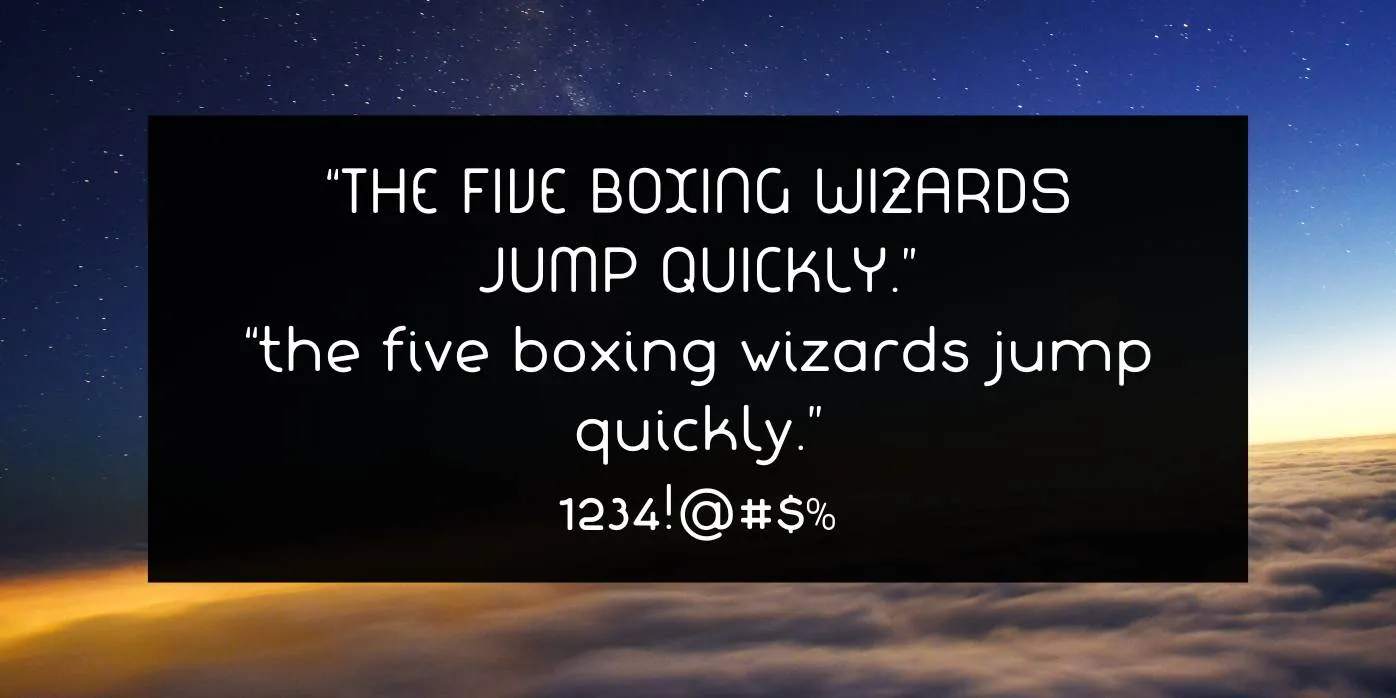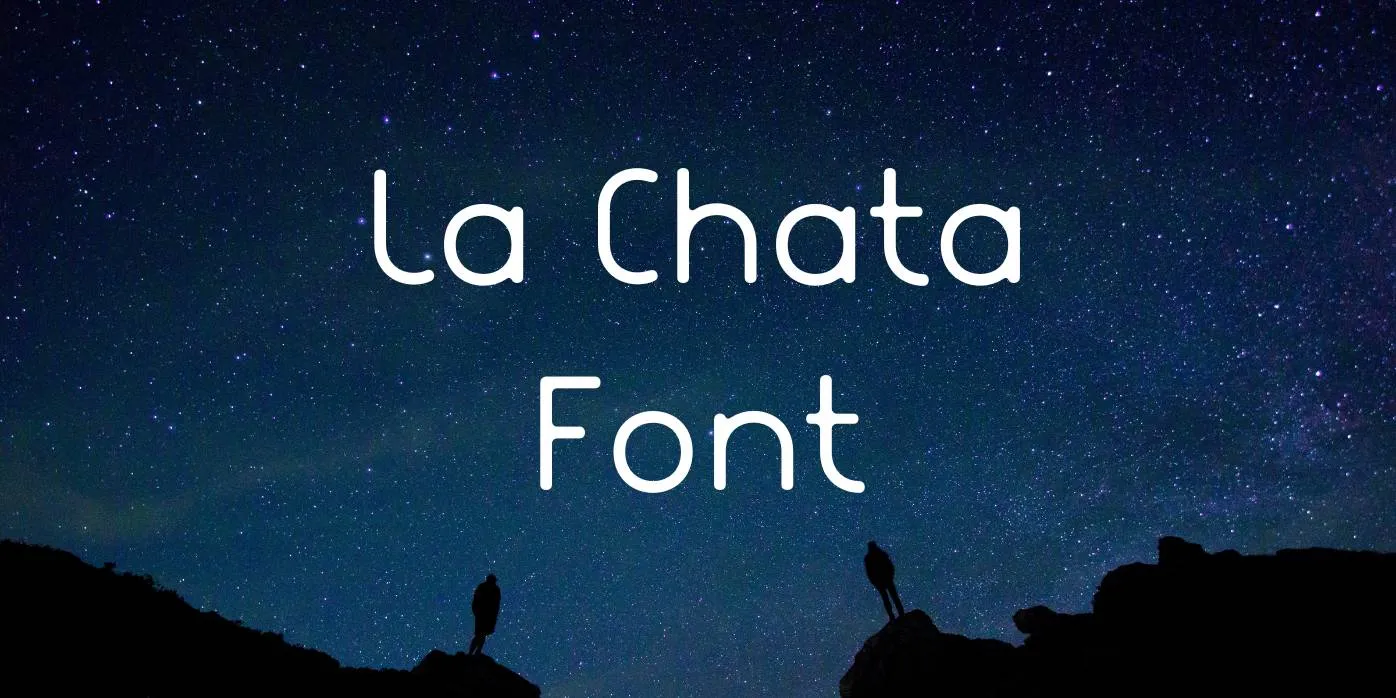
La Chata Font
Here we discuss detailed information about La Chata Font. It was designed by De Fharo. It is a very nice rounded shape font and can be used to make so many different projects. Its glyphs have unique designs.
It can be used for pairing with other fonts also like silka font to give a more attractive look to your projects. The copy-paste function is easy for this font. Usage You can use It for making so many different projects. It has characters, symbols, special characters, small letters, capital letters, and punctuations.
It is commonly used for making comic novels and books. You can be read easily even in small-size projects so you can make amazing headlines by using it. Its playful texture allows you to make different web designs and graphic designs for different projects. For making attractive brochures, flyers, and banners it can also be used.
FAQs! Who created La Chata Font? This is a very stunning font and was designed by Defharo. You can use this font to make so many different projects.
But you can do many other projects. Is La Chata a professional font? Yes, its high readability makes it so much more professional that’s why it is famous for being used in books and magazines.